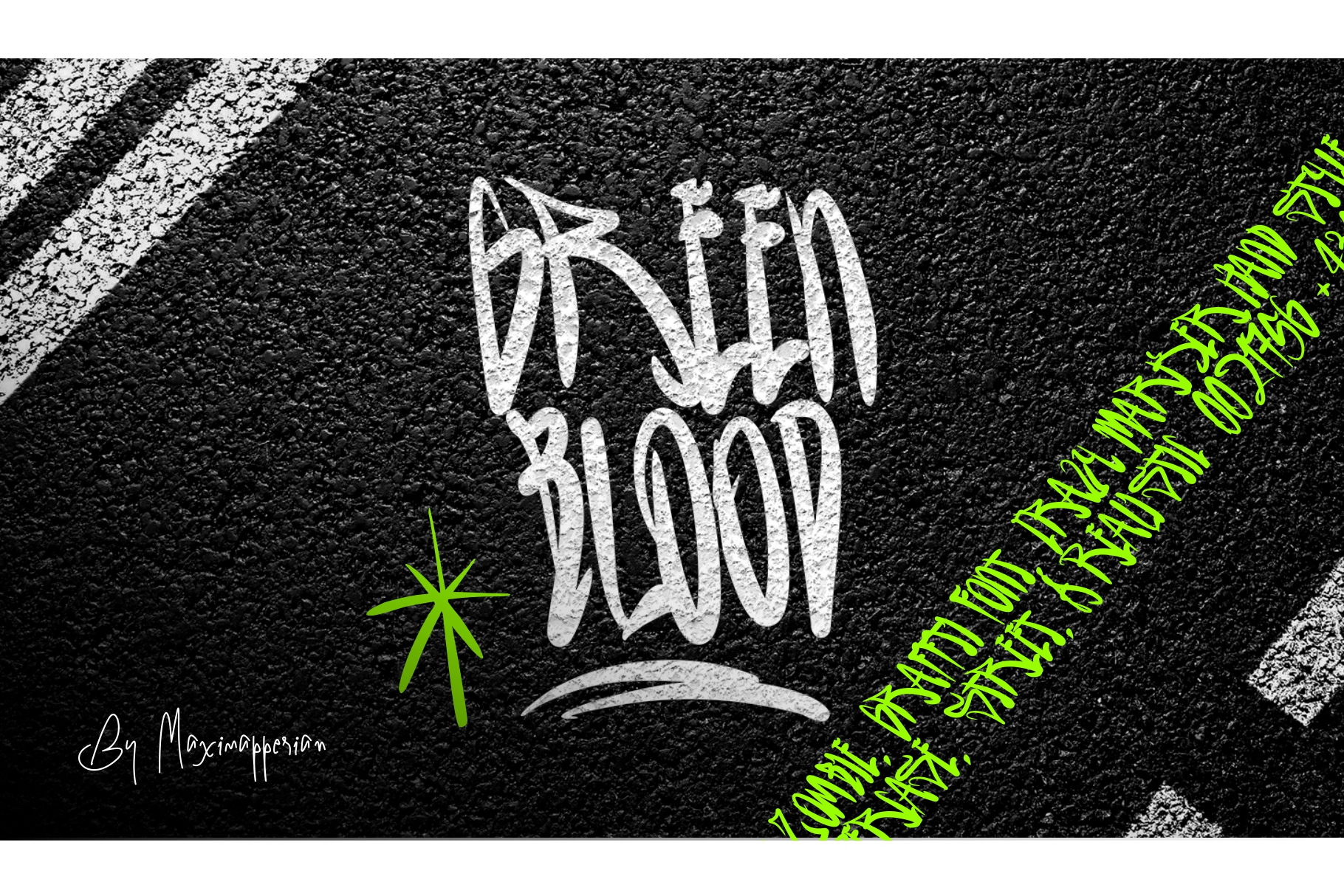
Green Blood Graffiti Font
Green Blood is a graffiti style font.
The font works great to make logos, clothing and short titles.
- Uppercase letters, lowercase letters.